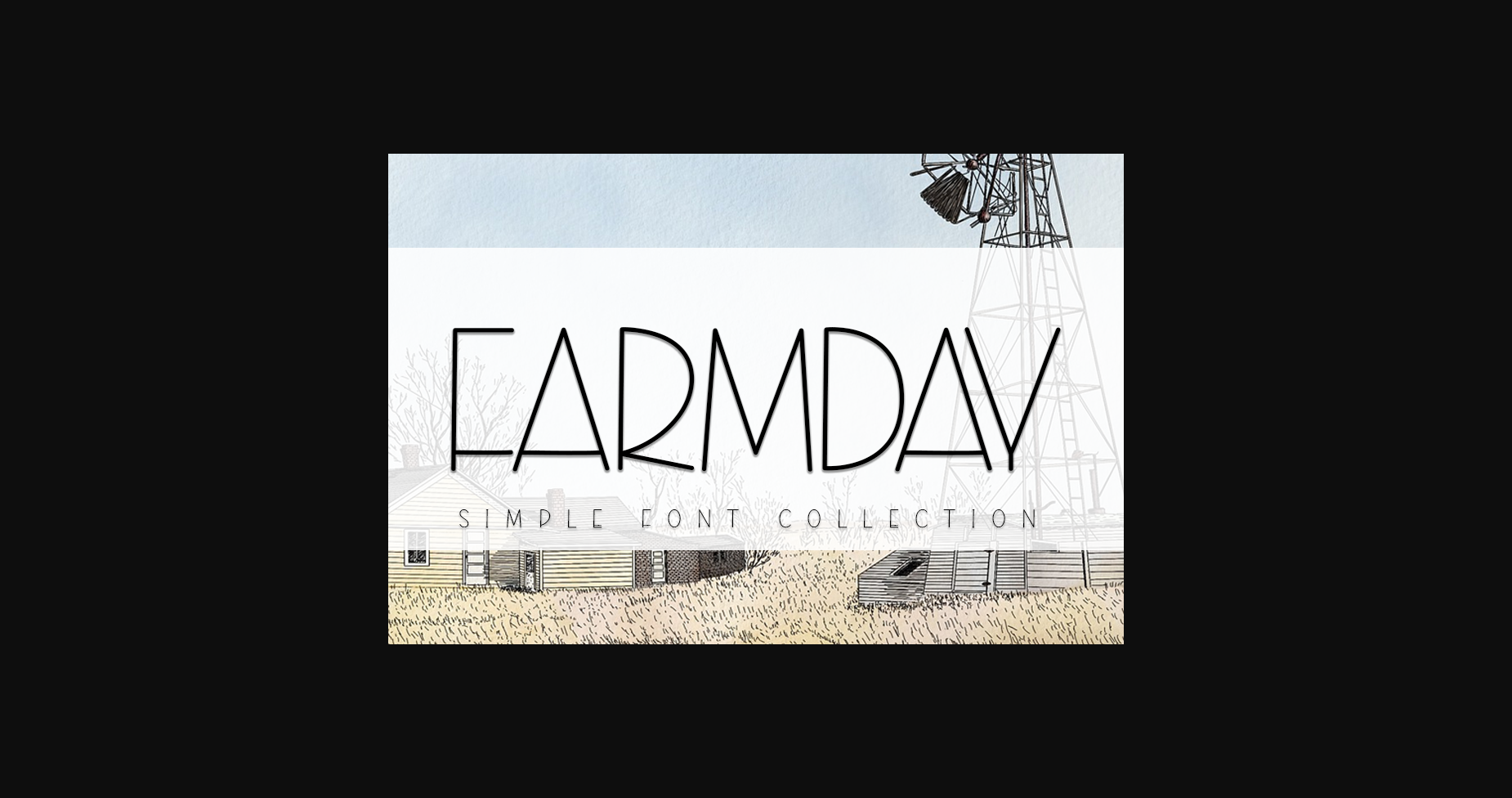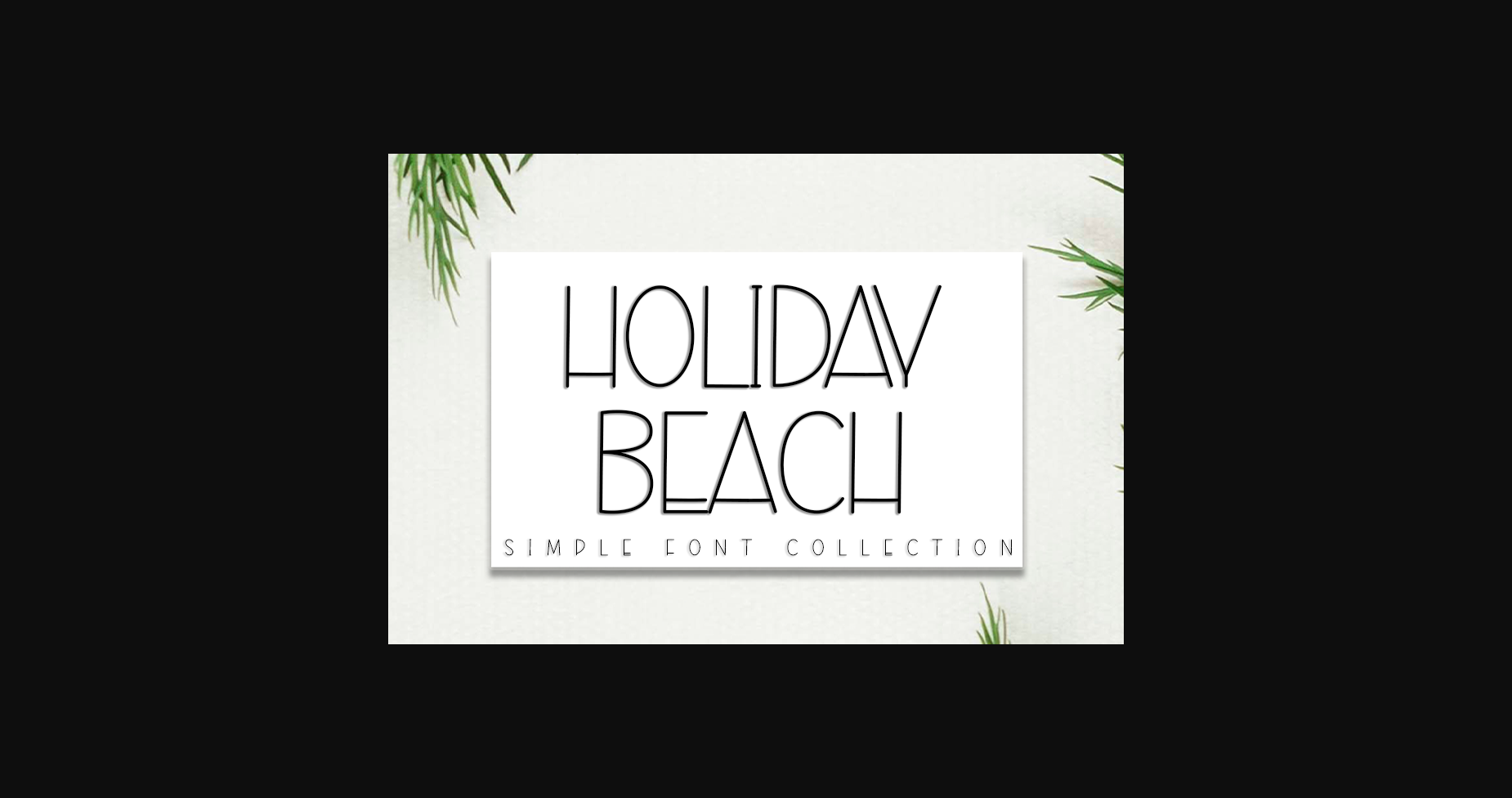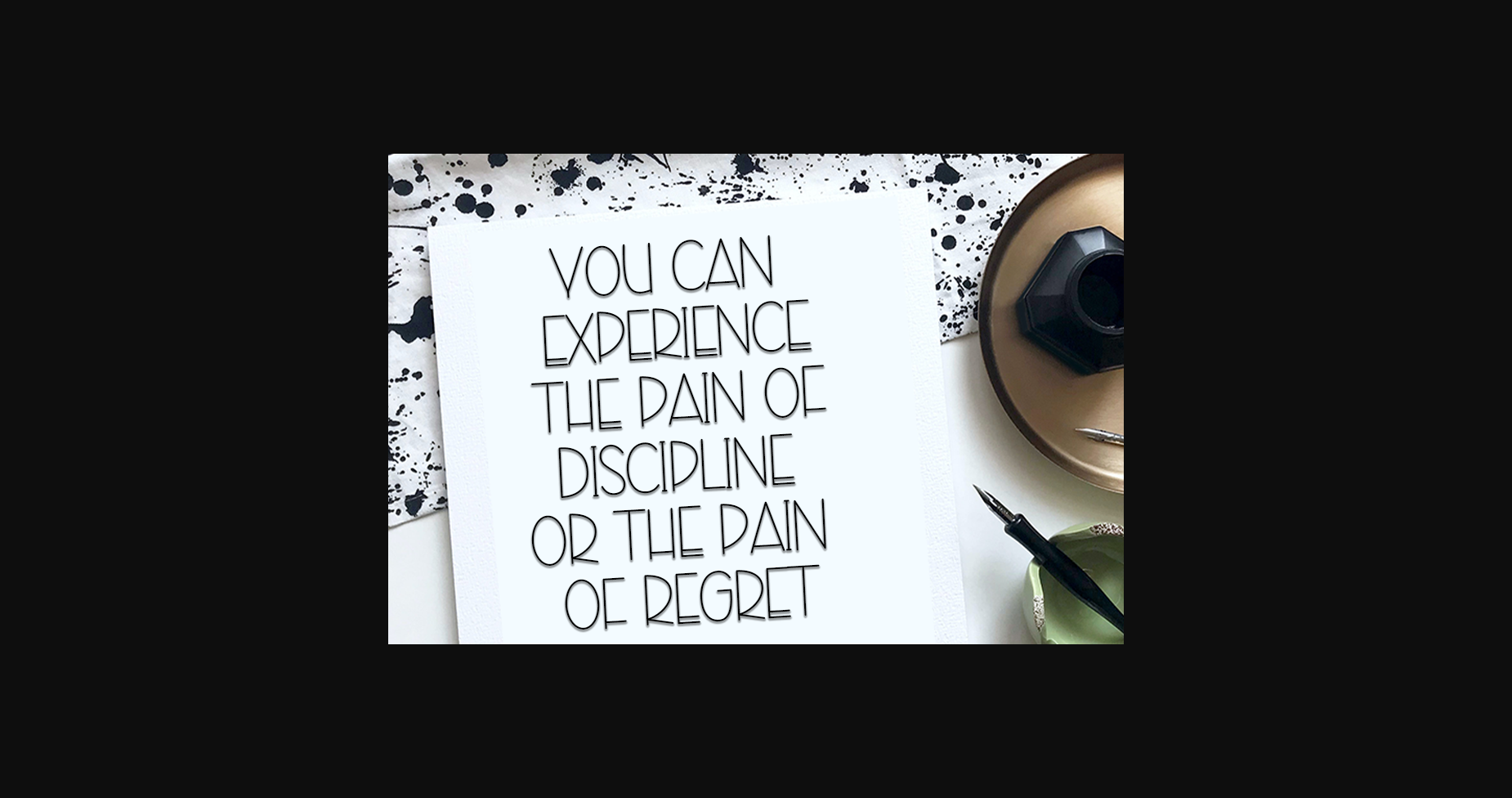
About Farmday Font
Farmday is a cool and modern Sans serif font. Whether you’re using it for crafts, digital design, presentations, or creating greeting cards, this font has the potential to become your go-to font, whatever the occasion.